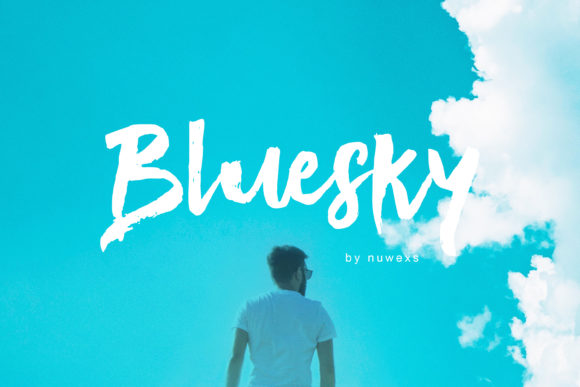
Introducing Bluesky Font: The Ultimate Choice for Bold and Sophisticated Designs
Are you tired of using the same old fonts for your designs? Look no further than Bluesky Font, a masterfully designed script that is sure to take your creations to the next level. With its bold yet sophisticated look, chunky and extended characters, Bluesky Font is the perfect choice for designers and crafters looking to make a statement.
What Makes Bluesky Font Stand Out?
Bluesky Font is not just another font – it’s a game-changer. Its unique blend of boldness and sophistication makes it perfect for a wide range of design applications, from logos and branding to packaging design and more. The font’s chunky and extended characters give it a distinctive look that is sure to grab attention and leave a lasting impression.
When it comes to creating a logo or brand identity, the font you choose can make all the difference. Bluesky Font is specifically designed to look amazing in logos and branding, with its bold and chunky characters making it easy to read and recognize. Whether you’re creating a logo for a new business or rebranding an existing one, Bluesky Font is an excellent choice.
Elevate Your Packaging Design with Bluesky Font
Packaging design is an essential part of any product’s marketing strategy, and the right font can make a big difference. Bluesky Font is perfect for packaging design, with its bold and sophisticated look adding a touch of elegance and sophistication to any product. Whether you’re designing a label, a brochure, or a product package, Bluesky Font is sure to make your design stand out.
Why Designers and Crafters Love Bluesky Font
So why do designers and crafters love Bluesky Font? For starters, its unique look and feel make it a versatile font that can be used in a wide range of design applications. Additionally, its bold and chunky characters make it easy to read and recognize, even at small sizes. And with its sophisticated look, Bluesky Font is perfect for creating high-end designs that are sure to impress.
Key Features of Bluesky Font
- Bold and Sophisticated Look: Bluesky Font features a bold yet sophisticated look that is perfect for making a statement.
- Chunky and Extended Characters: The font’s chunky and extended characters give it a distinctive look that is sure to grab attention.
- Perfect for Logos and Branding: Bluesky Font is specifically designed to look amazing in logos and branding.
- Elevate Your Packaging Design: The font’s bold and sophisticated look makes it perfect for packaging design.
- Versatile and Easy to Read: Bluesky Font is a versatile font that is easy to read and recognize, even at small sizes.
| Font Name | Bluesky Font |
| Author | nuwexs |
In conclusion, Bluesky Font is a masterfully designed script that is sure to become a favorite among designers and crafters. Its bold yet sophisticated look, chunky and extended characters, and versatility make it perfect for a wide range of design applications. Whether you’re creating a logo, branding a product, or designing packaging, Bluesky Font is the ultimate choice. So why wait? Get Bluesky Font today and start creating amazing designs!